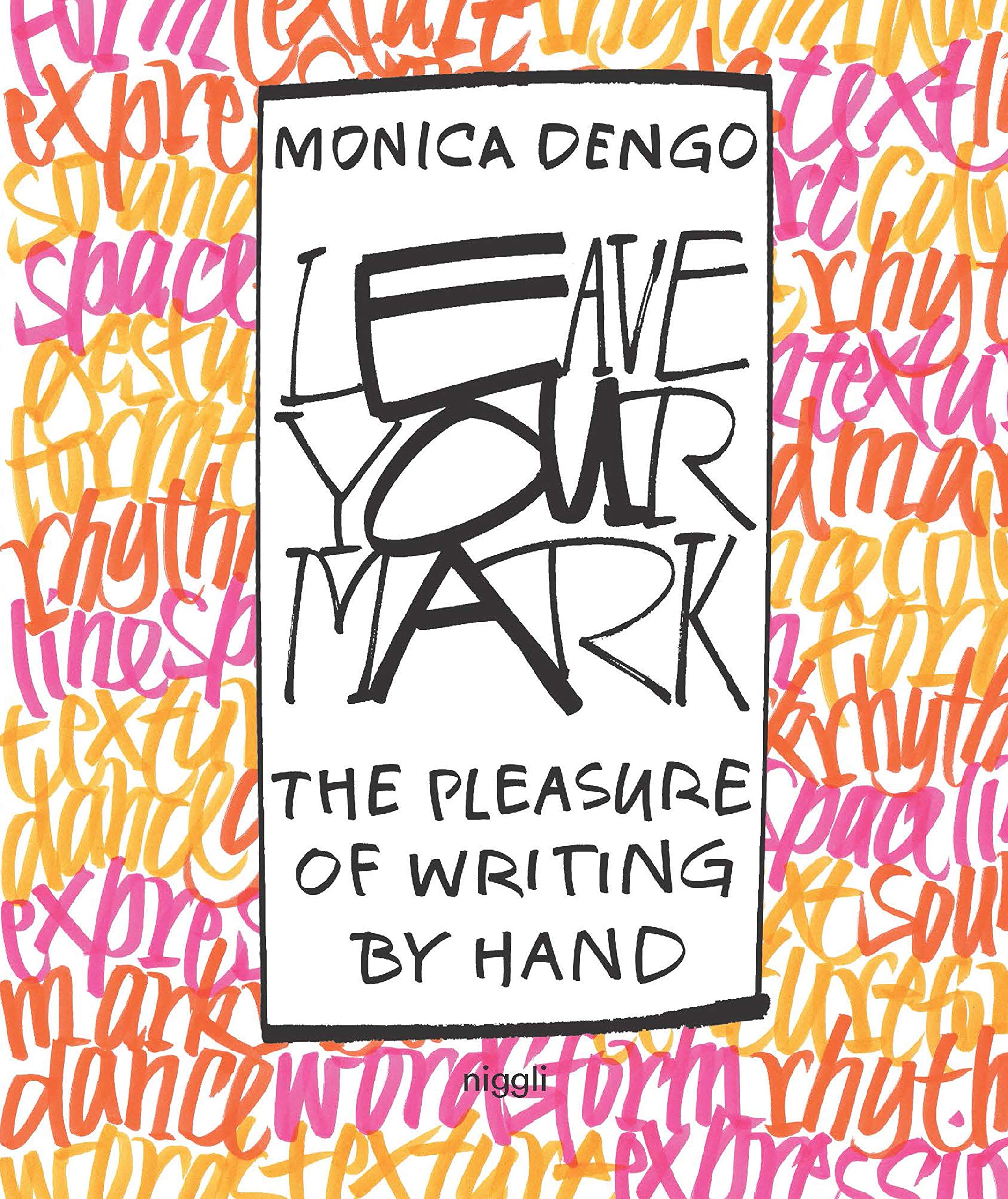
Although handwriting is one of mankind’s greatest cultural achievements, written communication today consists mostly of typing into computers and mobile devices. Monica Dengo addresses herself to all those who don’t even use pen and paper for their shopping list, but would like to try using them (again).
This book discovers and promotes the creative potential of handwriting – and allows to put it into practice right away on the pages of the book. Well-founded and very colorful, inspiring and yet structured: in the end, there is the joy of expressing oneself with a personal touch and the understanding that writing is much more than just the graphic transcription of language extending all the way to the origin of the need for expression.
_Method by specialist in the field _Development of new idea of handwriting _To find own way and own set of rules after understanding how it works _Eight chapters with practical exercises to be done in the book